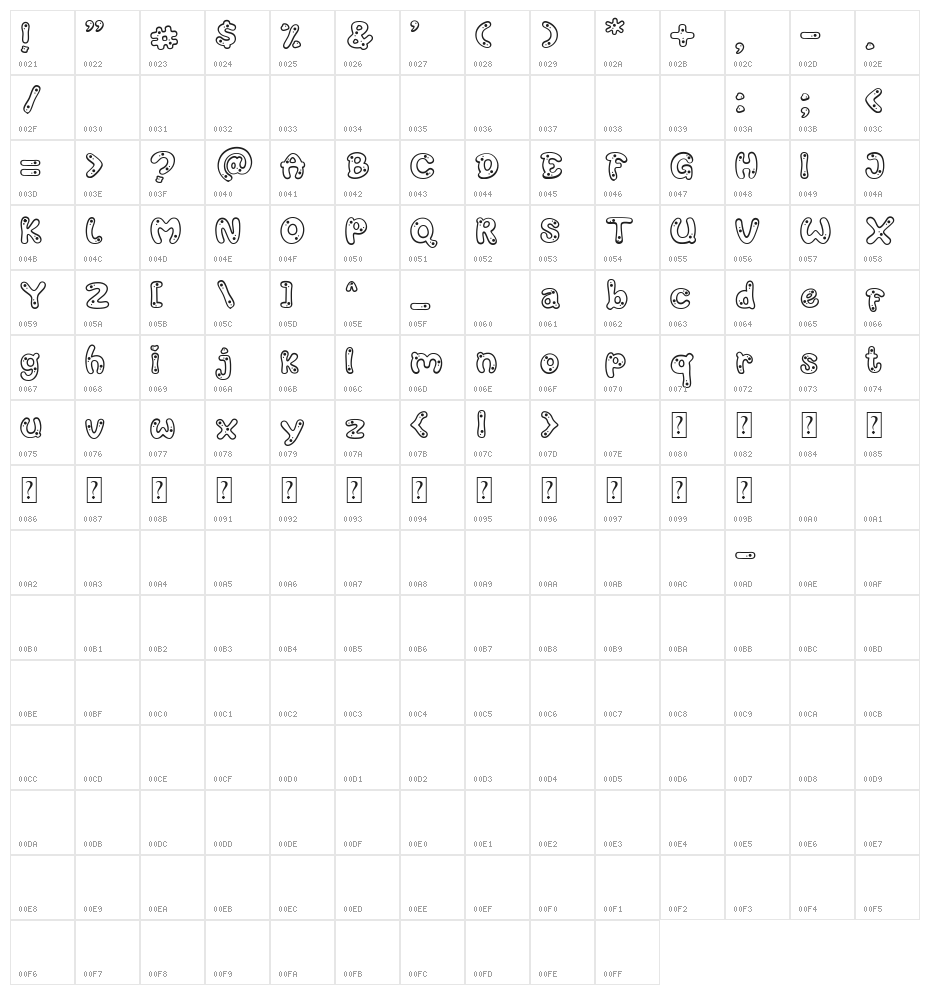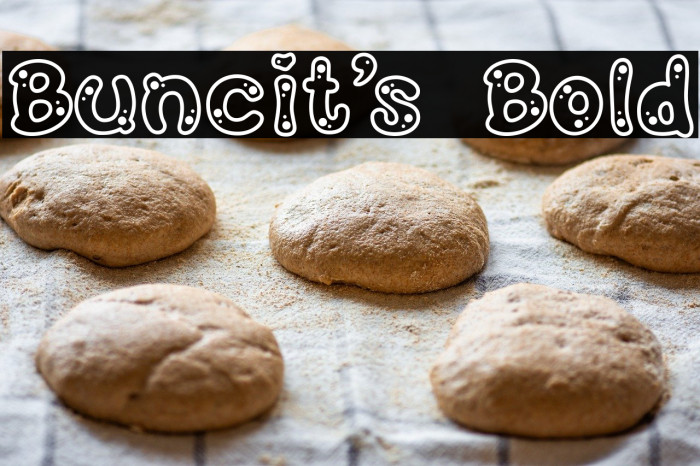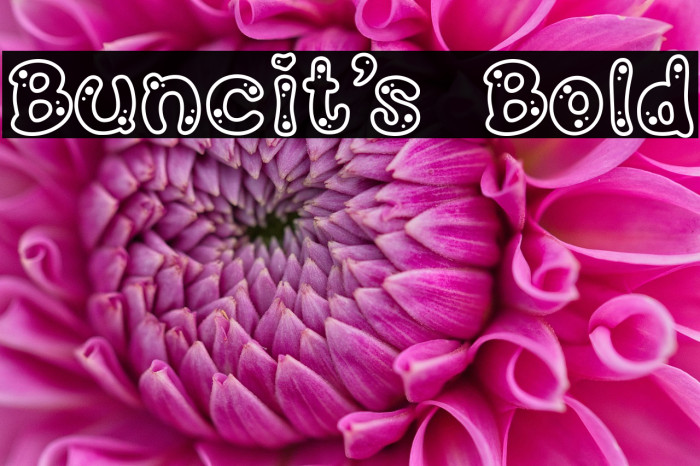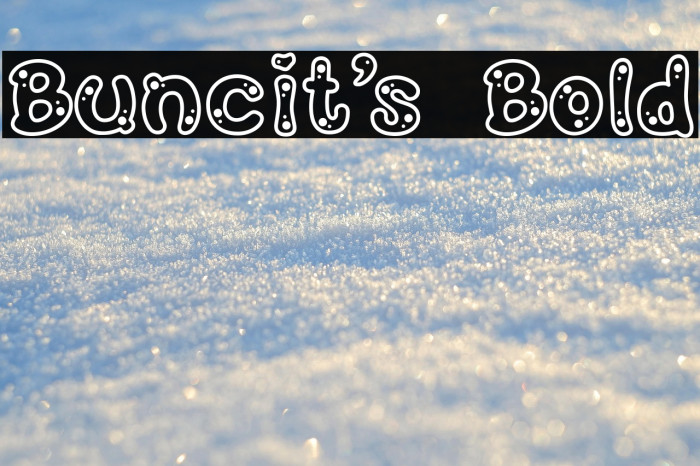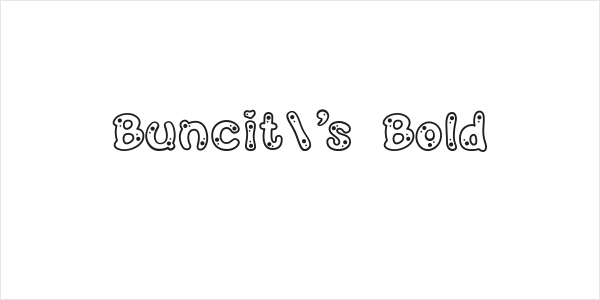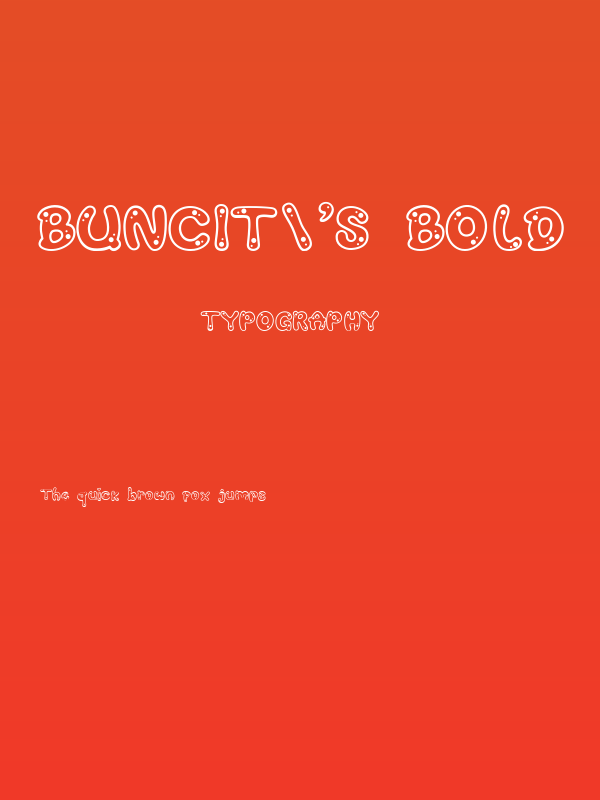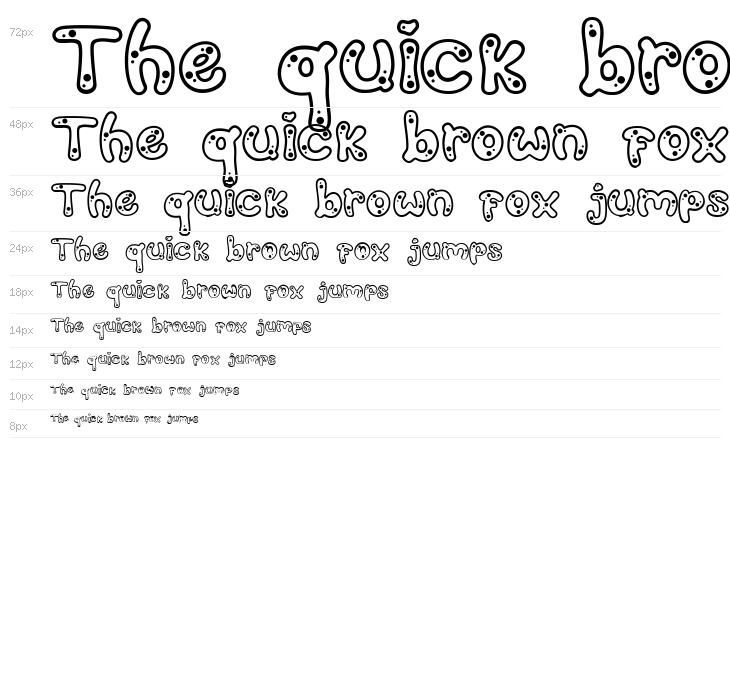
Buncit's Bold Font
Buncit's Bold Description
This playful and whimsical font features a bold, bubble-like design with a unique dotted pattern inside each character. The letters are rounded and have a cartoonish appearance, making them stand out with a fun and lively vibe. The font includes both uppercase and lowercase letters, as well as numbers and a variety of special characters. Its distinctive style is characterized by thick strokes and a consistent dotted motif, adding a touch of creativity and humor to any text. The overall look is casual and friendly, perfect for projects that require a lighthearted and engaging typeface.
Overall StylePlayful, Whimsical
Proposed ProjectsGreat for children's books, comic strips, party invitations, playful branding, and creative posters.